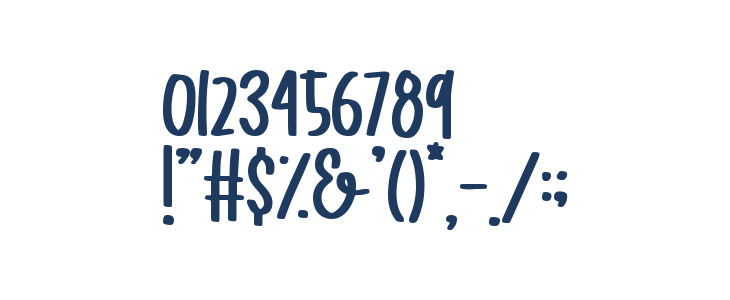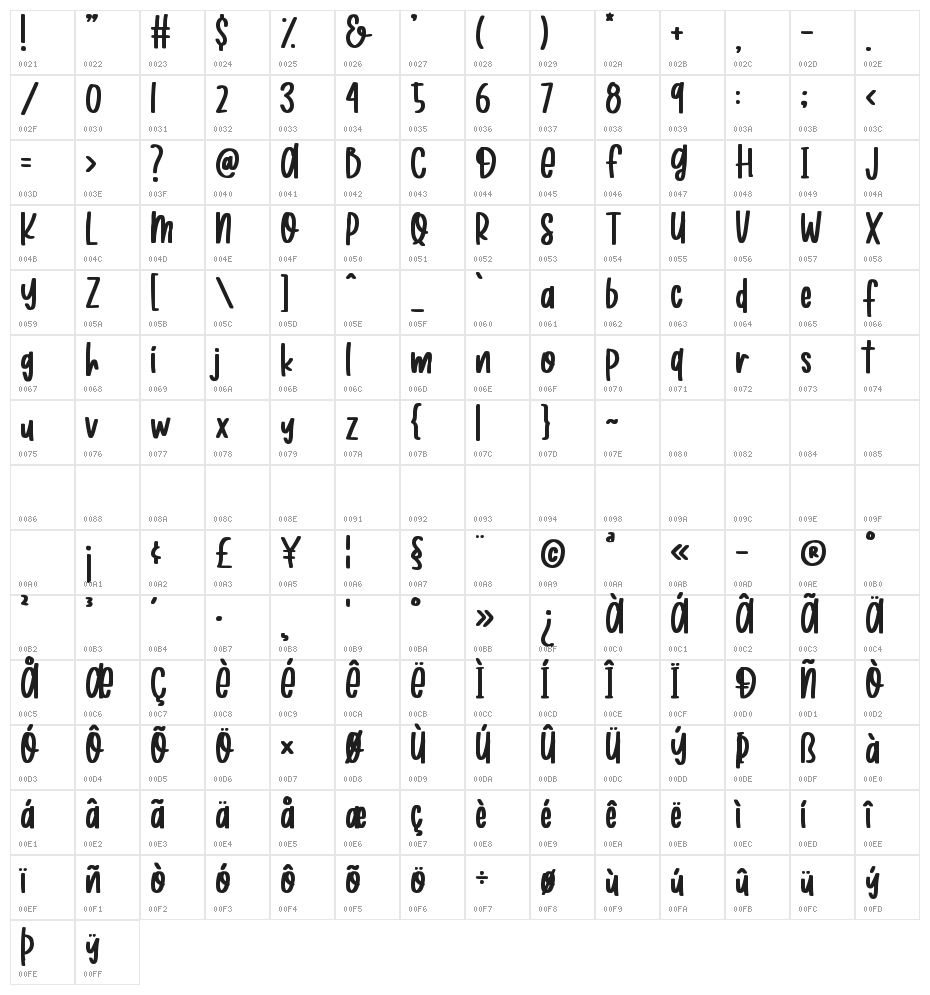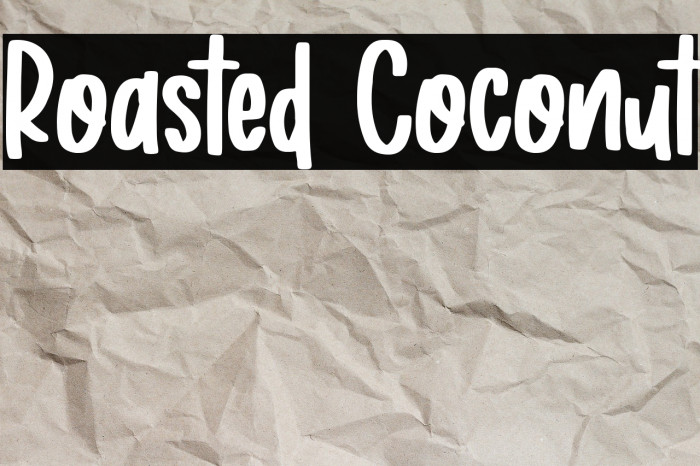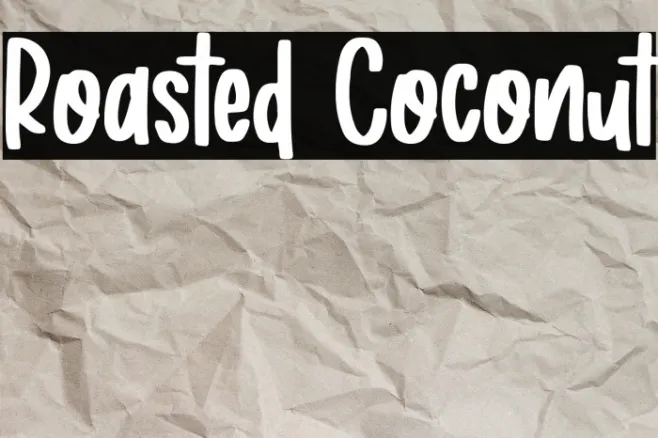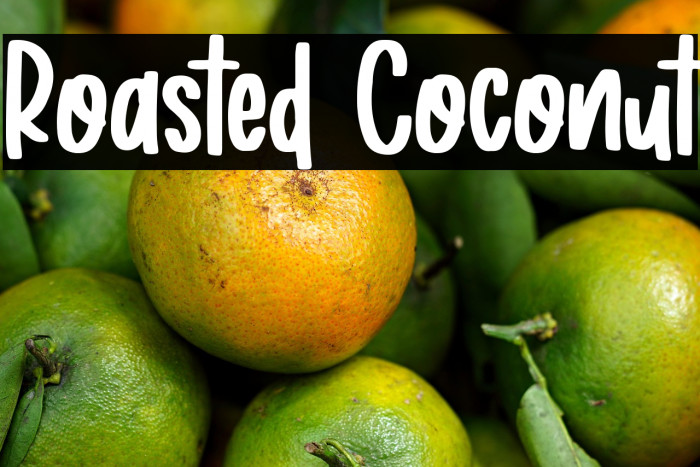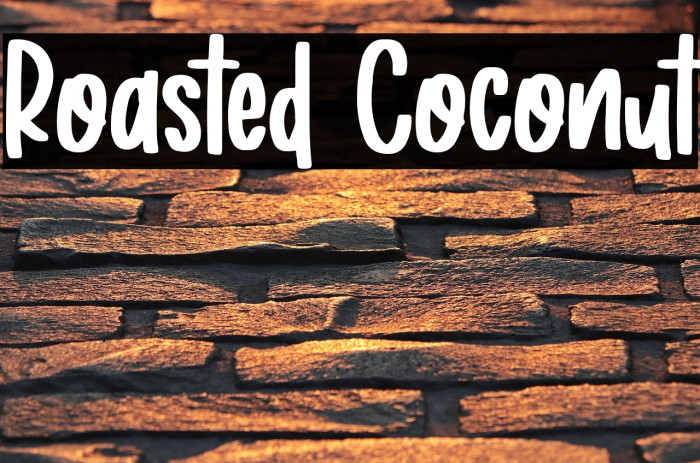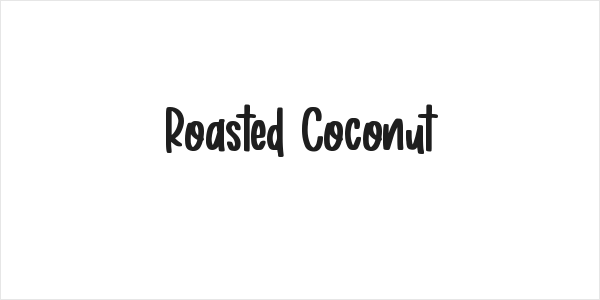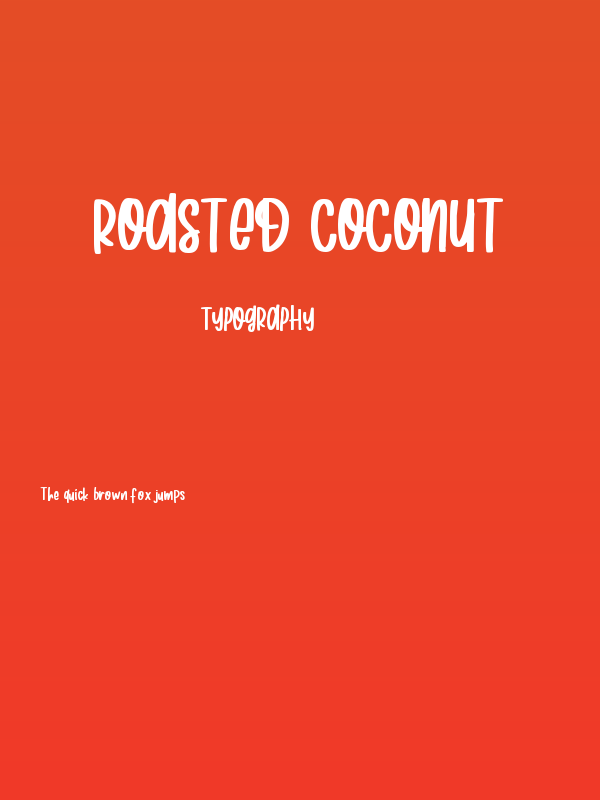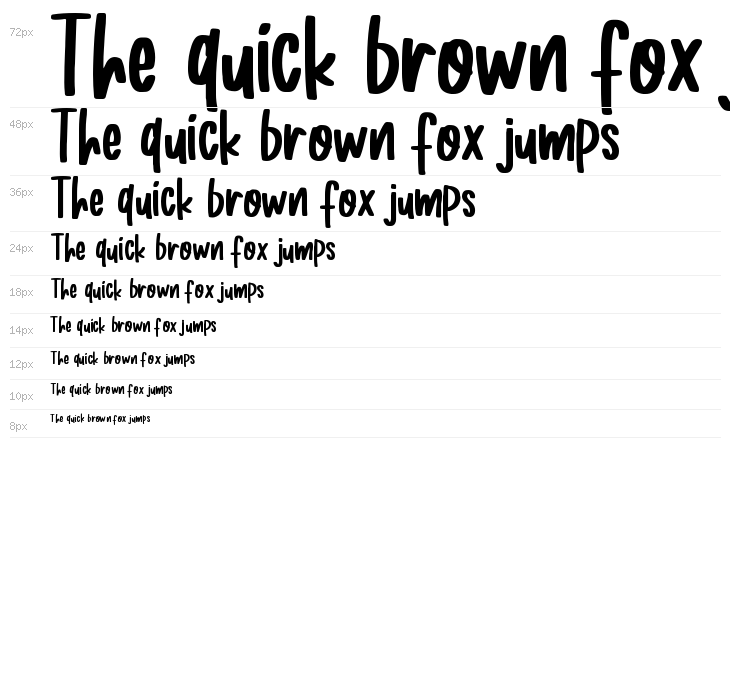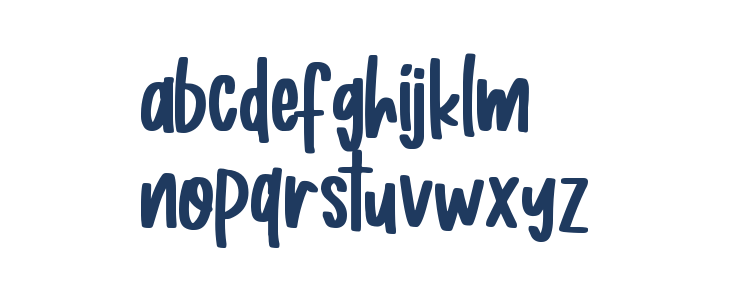
Roasted Coconut Font
Roasted Coconut Description
This font exudes a playful and casual vibe with its bold, handwritten style. The letters are rounded and slightly irregular, giving it a friendly and approachable appearance. The uppercase and lowercase letters maintain a consistent flow, while the numbers and special characters complement the overall design. Its thick strokes and informal style make it ideal for projects that require a touch of personality and warmth. The font's unique character is perfect for creative and artistic applications, where a relaxed and informal tone is desired.
Overall StyleCasual, Playful
Use CaseHeadlines, Logos, Informal Text
Proposed ProjectsIdeal for greeting cards, children's books, playful branding, and social media graphics.